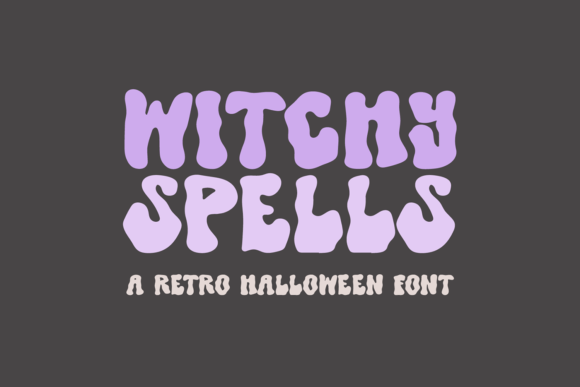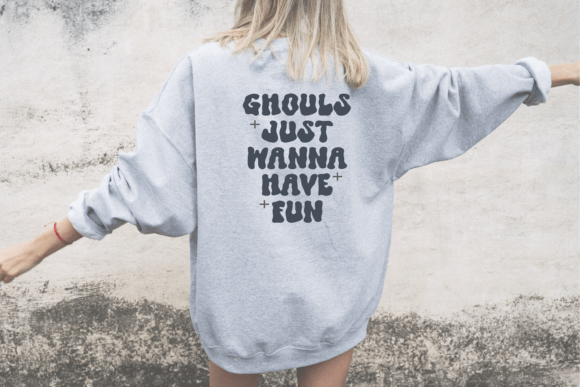
Witchy Spells Font
“Witchy Spells” Spooky Wavy Retro Halloween Font
This will work great for your Halloween party invitations, web graphics, and other Halloween crafts.